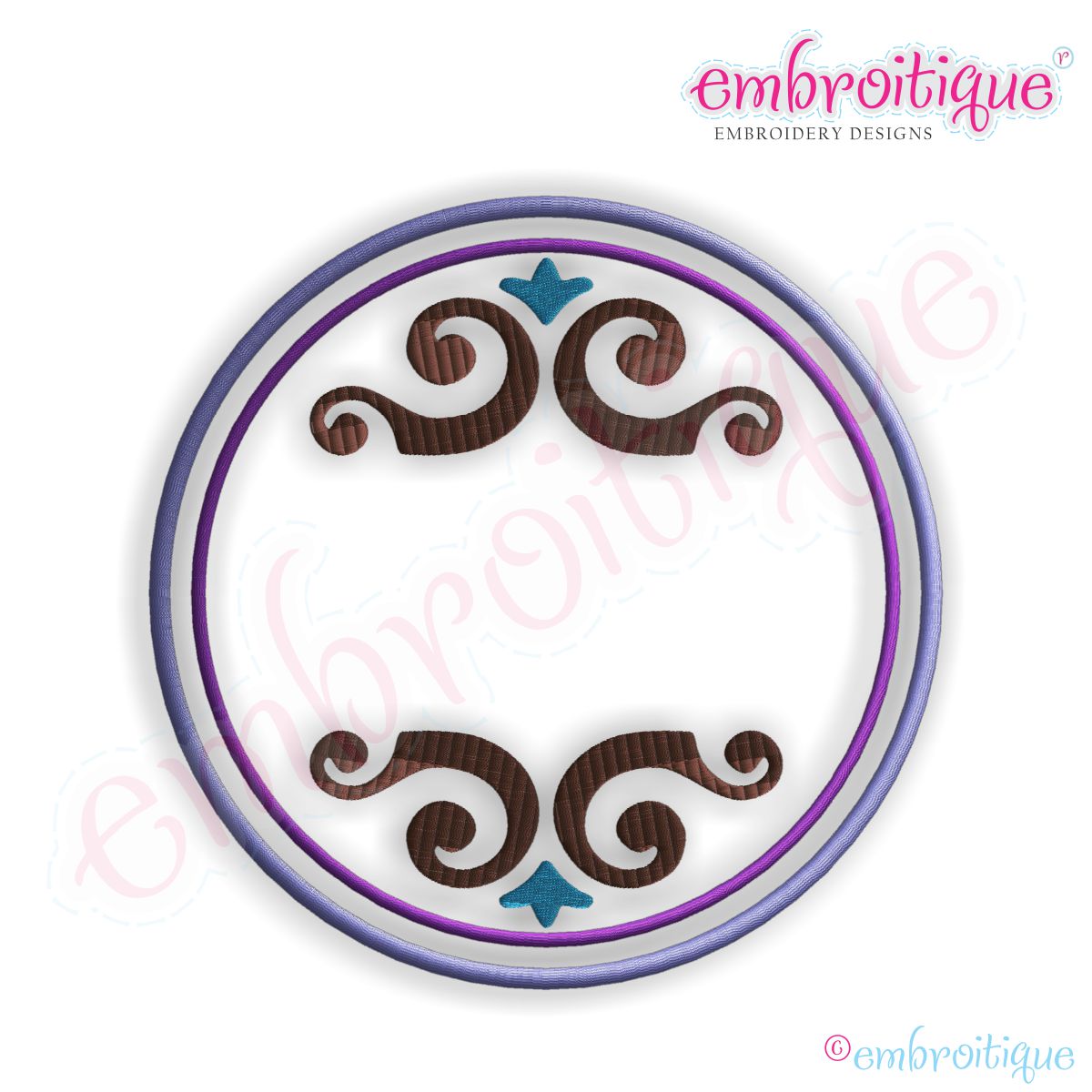
Halo Font Frame - Large
This is such a beautiful font frame! Perfect for home decor, princess projects, framing monograms and so much more! Also available in smaller sizes.